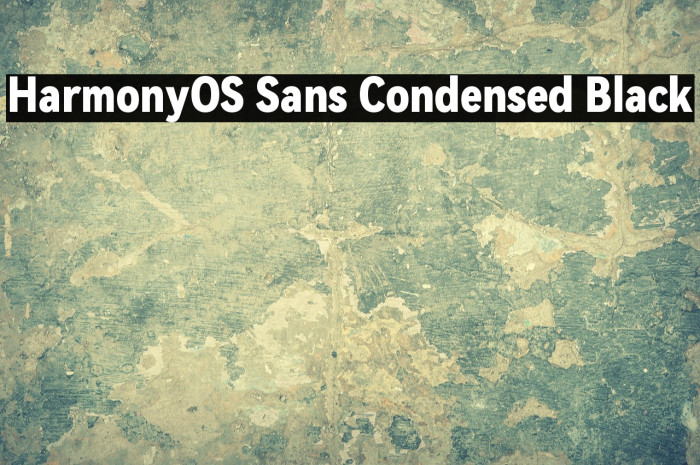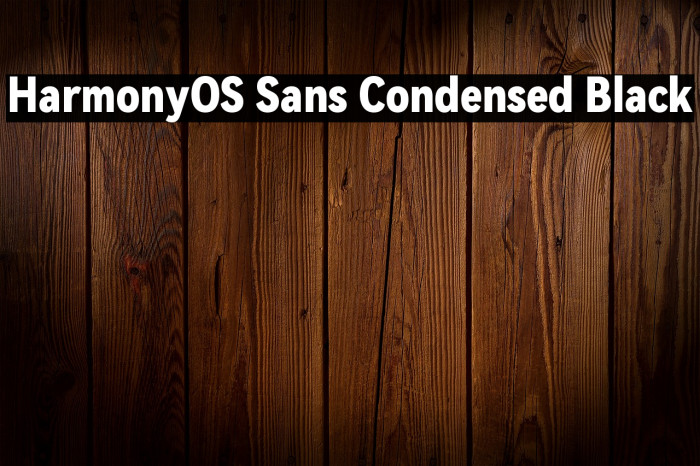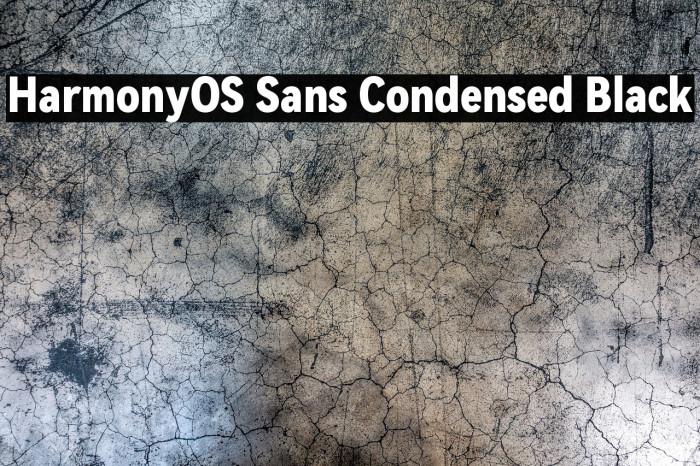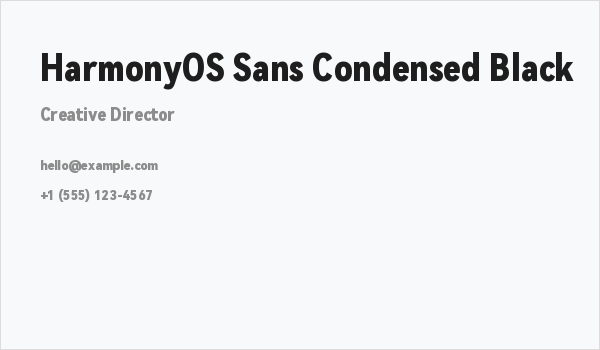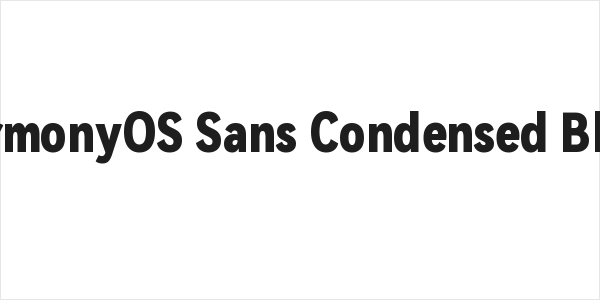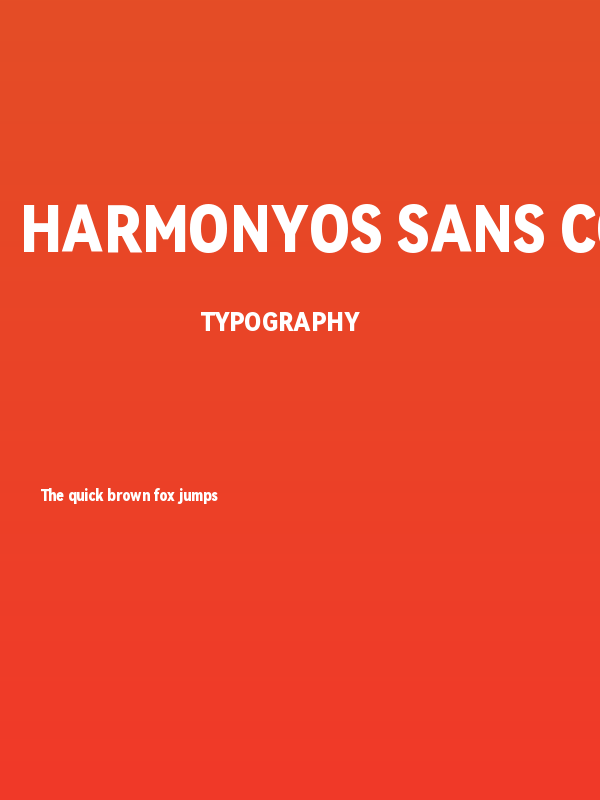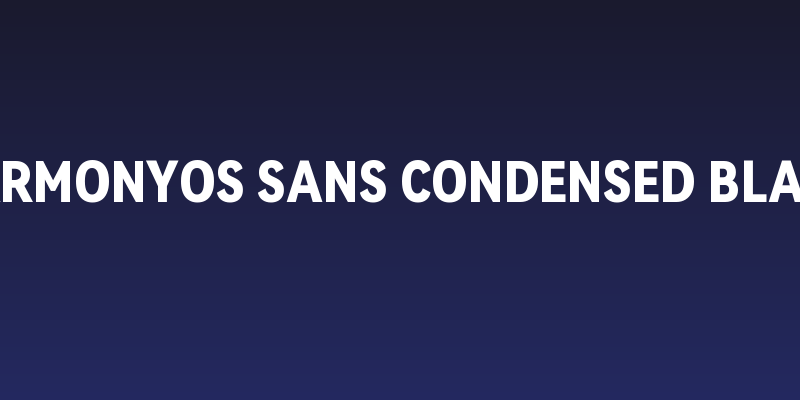
HarmonyOS Sans Condensed Black Font
HarmonyOS Sans Condensed Black Description
This font exhibits a bold and condensed sans-serif style, characterized by its strong, uniform strokes and minimal contrast. The letters are tightly spaced, enhancing its compact appearance. The uppercase and lowercase letters maintain a consistent weight, contributing to its robust and impactful look. The numerals and special characters are designed with the same boldness, ensuring readability and uniformity across different uses. This font is ideal for making a strong visual statement, with its clean lines and modern aesthetic.
| Proposed Projects | This font is perfect for headlines, posters, branding materials, and any project requiring a bold, modern look. |